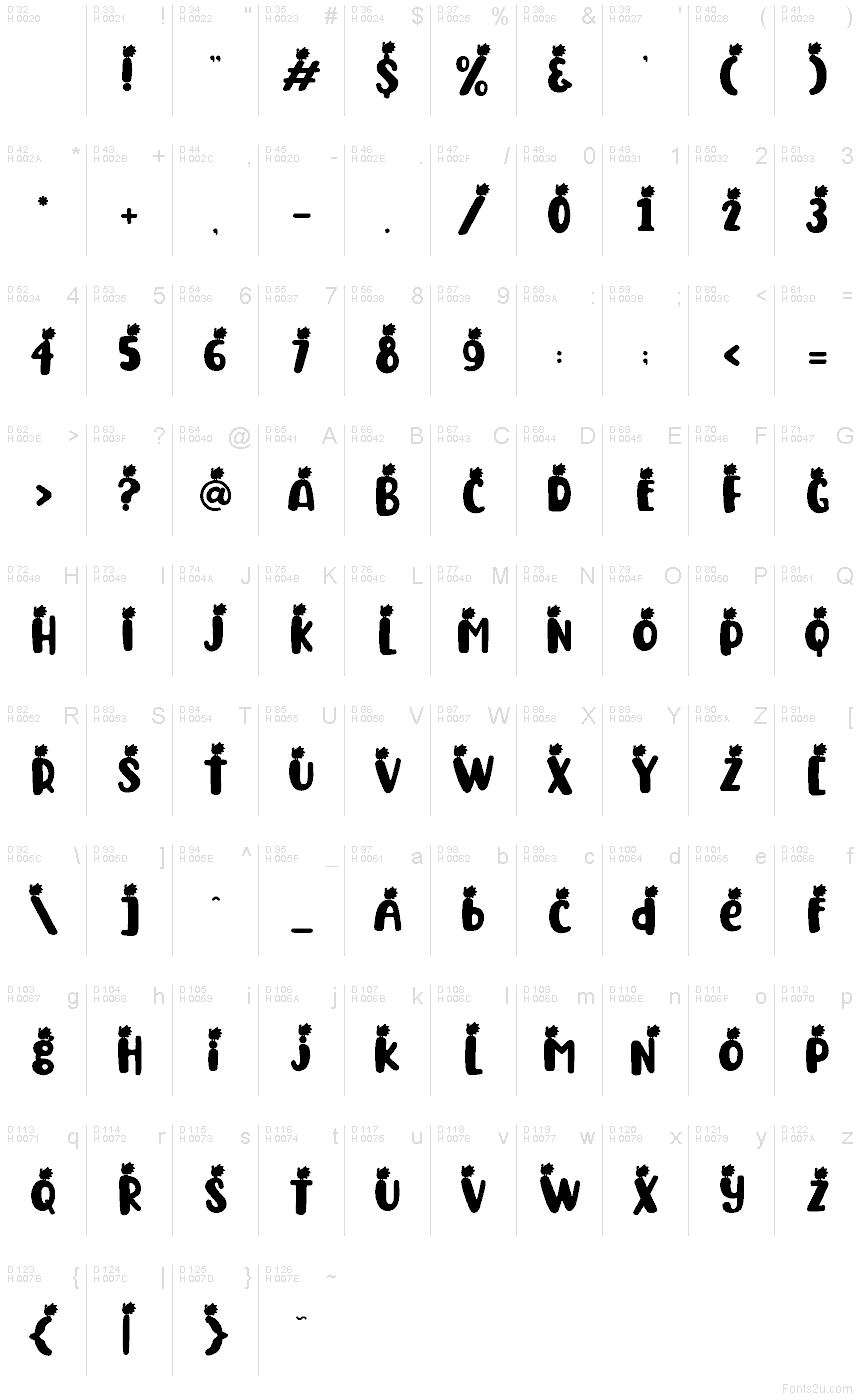
Thanksgiving Joy Turkey
Thanksgiving Joy Turkey font by PutraCetol Studio reflects its decorative nature with cartoonish letters. The display style can be perceived in the playful design of the characters which have a bold weight and condensed width. With this free font, you grasp a festive-themed technological-like futuristic statement for all your projects.
This favorable font is ideal for food packages, party invitations, customs, logo designs, wallpapers, typography art designs, t-shirts appearances, price tags on products or offers in stores. Other uses include restaurant menus and items identification like festive gifts at retail shops.